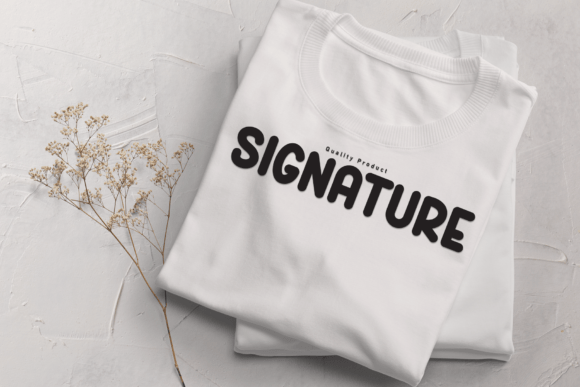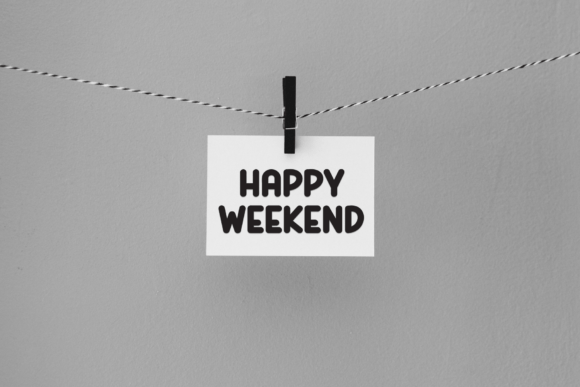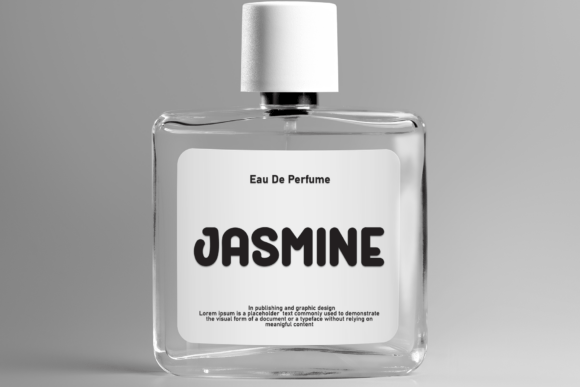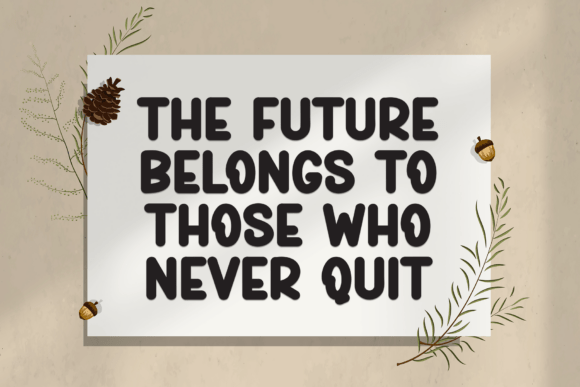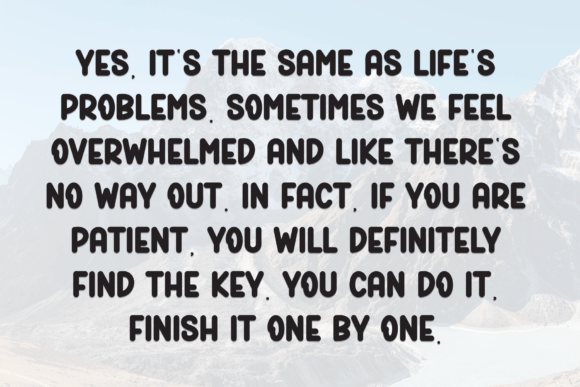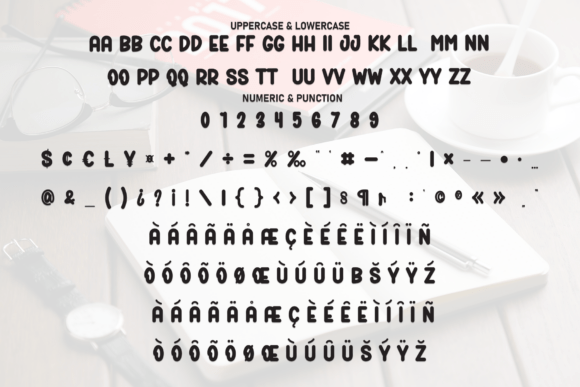
Introducing Book Diary Font: The Perfect Blend of Casualness and Clarity
In the world of typography, fonts play a crucial role in conveying messages and setting the tone for a brand or project. For designers and crafters, finding the right font can be a daunting task. However, if you’re looking for a font that exudes warmth, clarity, and approachability, look no further than Book Diary Font. This casual and neat display font is designed to bring a touch of personality to your projects, making it an excellent choice for branding, headlines, and everyday designs.
The Design Philosophy Behind Book Diary Font
Book Diary Font boasts a clean structure and approachable style, making it an ideal choice for designers who want to add a human touch to their projects. The font’s balanced letterforms offer exceptional readability and charm, ensuring that every message feels genuine and inviting. Whether you’re working on a branding project, creating headlines, or designing everyday materials, Book Diary Font is the perfect companion.
Key Features of Book Diary Font
- Clean Structure: Book Diary Font features a clean and organized structure, making it easy to read and understand.
- Approachable Style: The font’s approachable style makes it perfect for designs that require a friendly and inviting tone.
- Balanced Letterforms: The font’s balanced letterforms provide exceptional readability and charm, making every message feel genuine and engaging.
- Versatility: Book Diary Font is suitable for a wide range of projects, including branding, headlines, and everyday designs.
Why Choose Book Diary Font?
- Unique Personality: Book Diary Font has a unique personality that sets it apart from other fonts. Its casual and neat design makes it perfect for projects that require a touch of warmth and approachability.
- Improved Readability: The font’s clean structure and balanced letterforms ensure that your message is conveyed clearly and effectively.
- Branding: Use Book Diary Font to create a consistent brand identity. Its clean structure and approachable style make it perfect for logos, business cards, and other branding materials.
- Headlines: Add a touch of personality to your headlines with Book Diary Font. Its bold and balanced letterforms make it perfect for titles, headings, and other attention-grabbing elements.
- Everyday Designs: Use Book Diary Font in your everyday designs, such as social media graphics, flyers, and brochures. Its versatility and ease of use make it an excellent choice for a wide range of projects.
In conclusion, Book Diary Font is an excellent choice for designers and crafters who want to add a touch of warmth and approachability to their projects. Its clean structure, approachable style, and balanced letterforms make it perfect for branding, headlines, and everyday designs. With its unique personality and improved readability, Book Diary Font is sure to become a staple in your font collection.